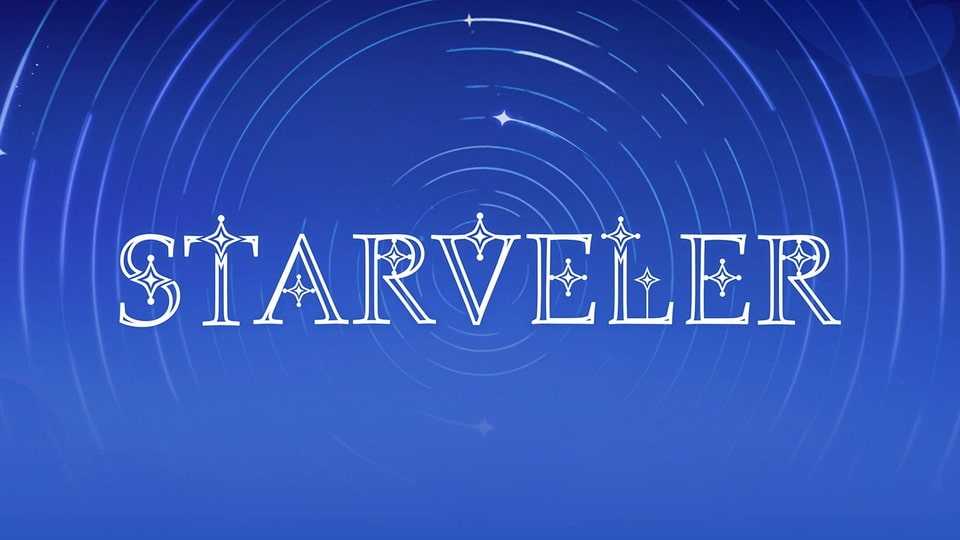
Download Starveler font, a fantasy-inspired serif typeface that captures the ethereal beauty of the stars, inspired by Lumine, the celestial Traveler from Genshin Impact.